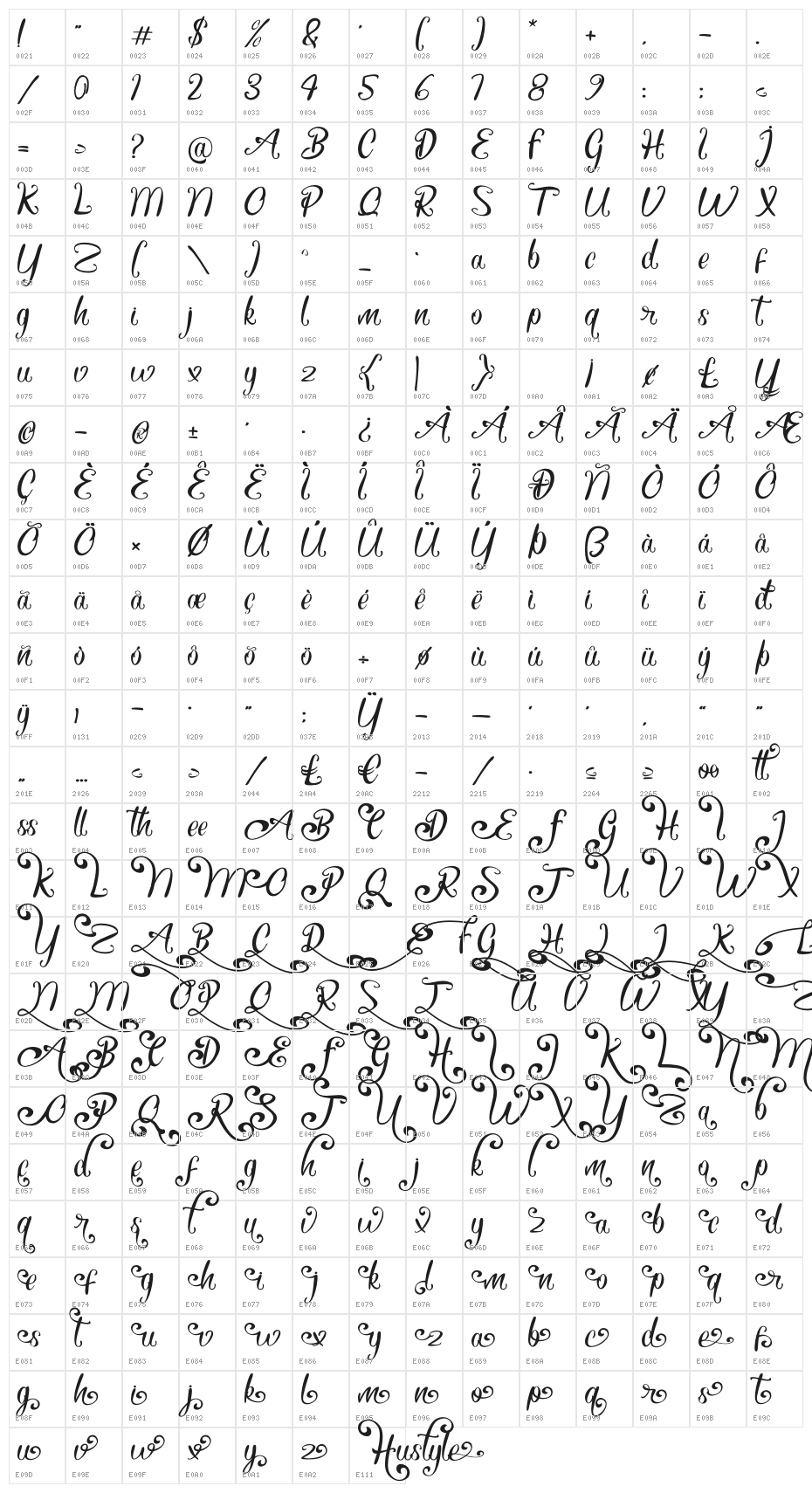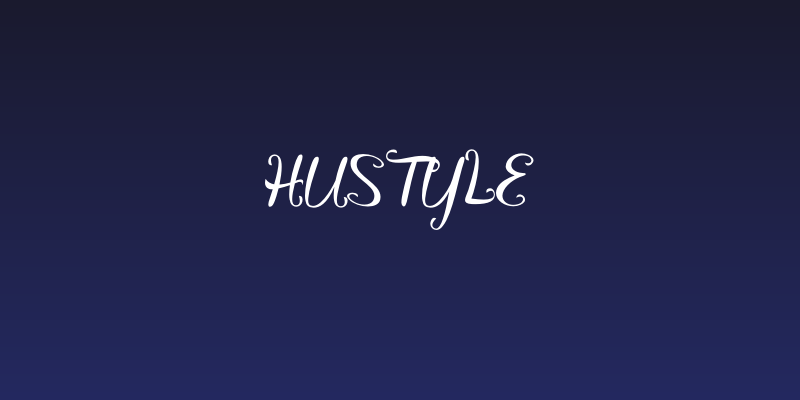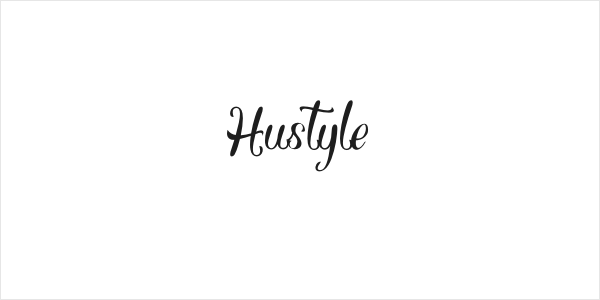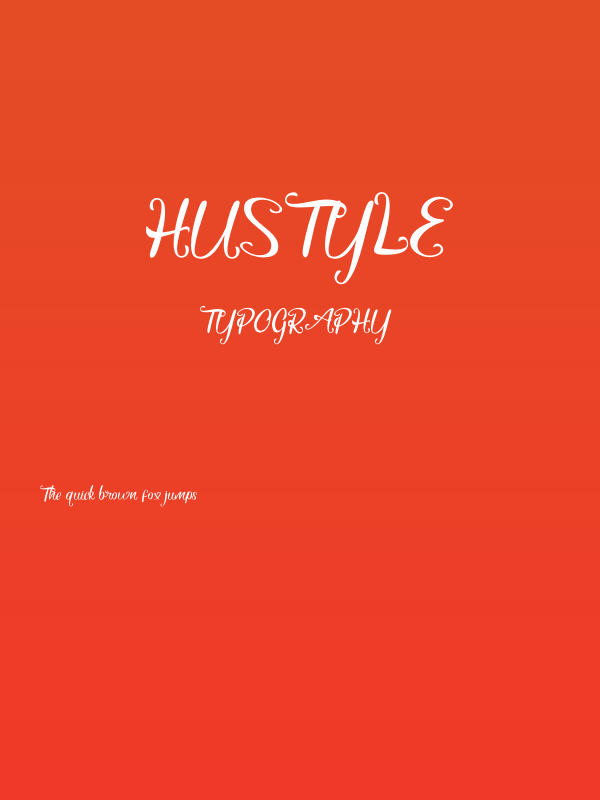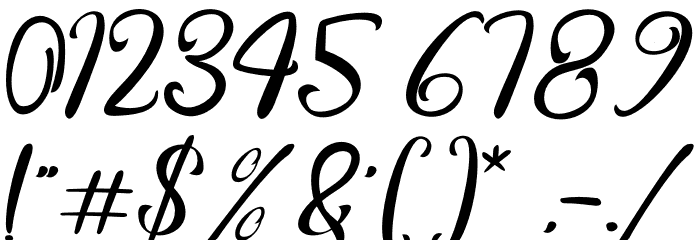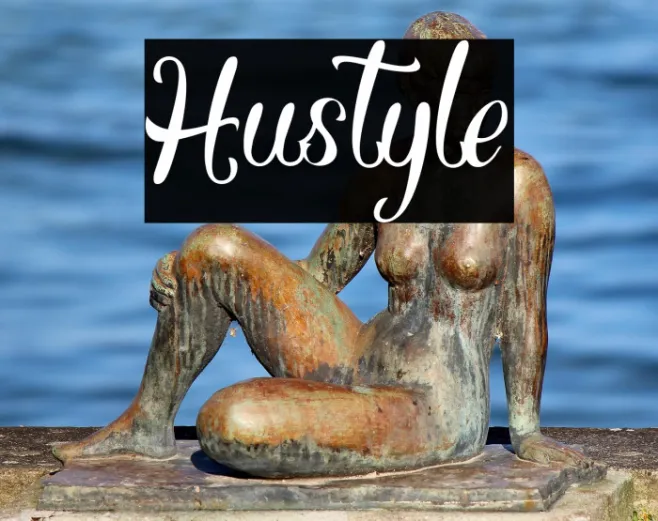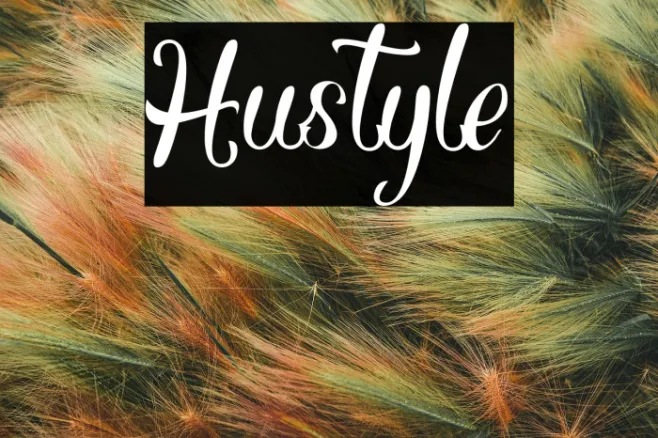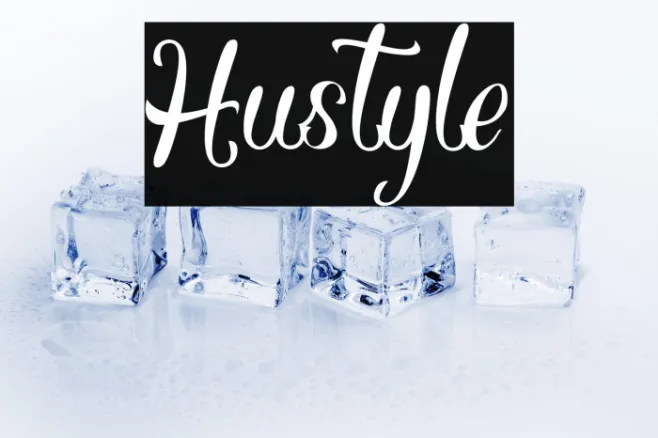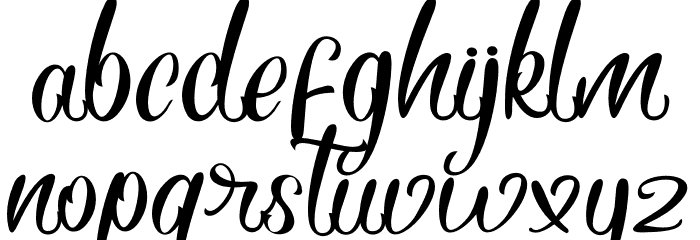
Hustyle Font
Hustyle Description
This font features a dynamic and flowing script style, characterized by its elegant and smooth curves. The uppercase letters exhibit a graceful, cursive form with a slight slant, while the lowercase letters maintain a consistent fluidity, enhancing readability. The numerals are designed with a playful touch, complementing the overall aesthetic. Special characters are integrated seamlessly, maintaining the font's cohesive appearance. The strokes vary in thickness, providing a moderate contrast that adds depth and visual interest. This font exudes a modern yet timeless appeal, making it versatile for various design applications.
| Proposed Projects | Ideal for wedding invitations, branding, greeting cards, and elegant packaging designs. |